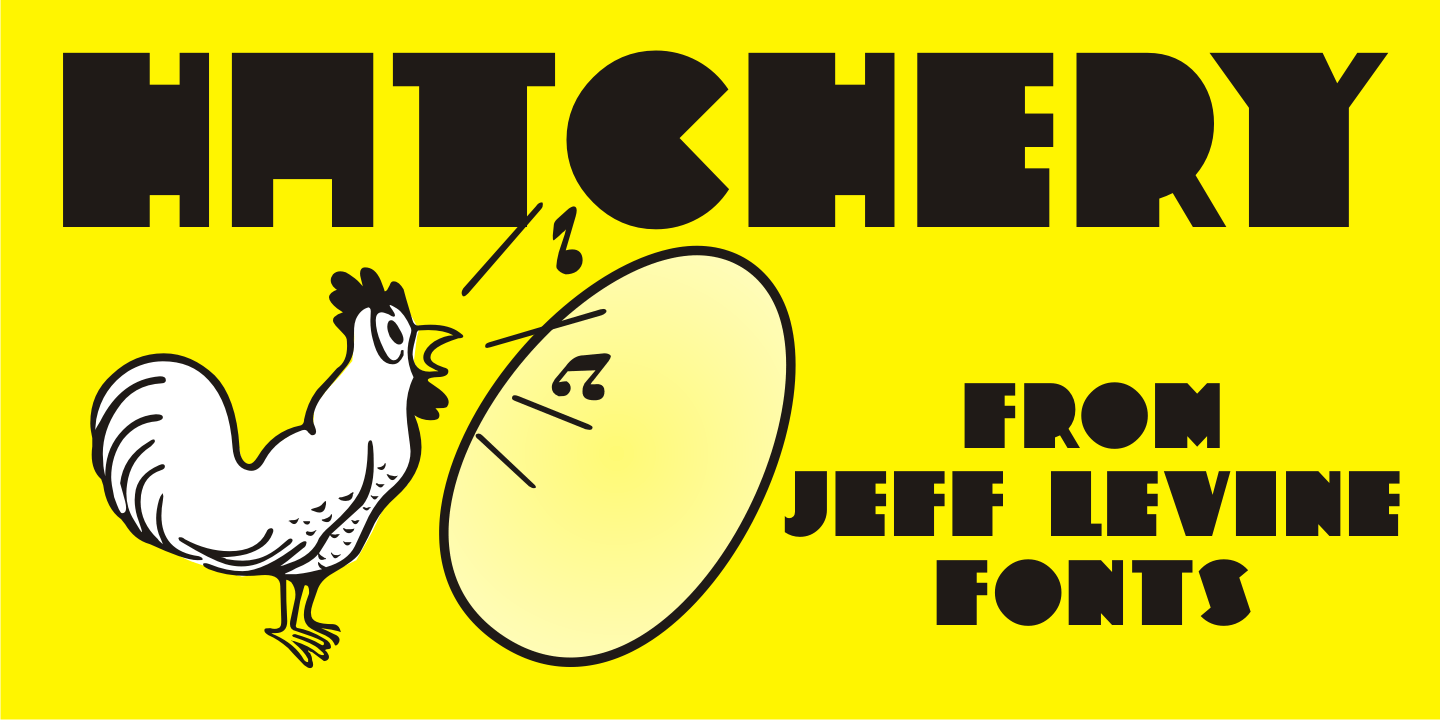
Hatchery
A photo from Gene Gable (a regular contributor of ideas to Jeff Levine Fonts) shows the vintage signage for the Lasher Hatchery in a slightly different take on the classic Art Deco solid letter style.
Since good ideas, like eggs can be hatched, thus the font's name of Hatchery JNL.